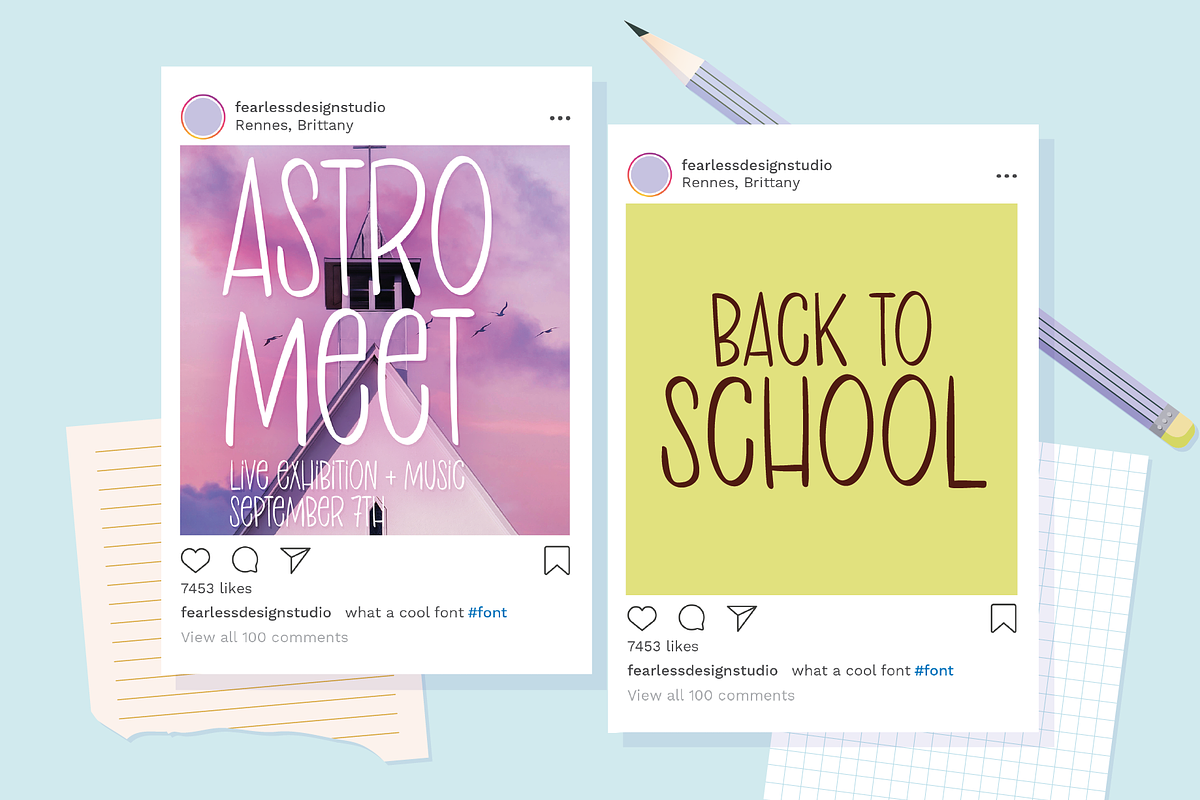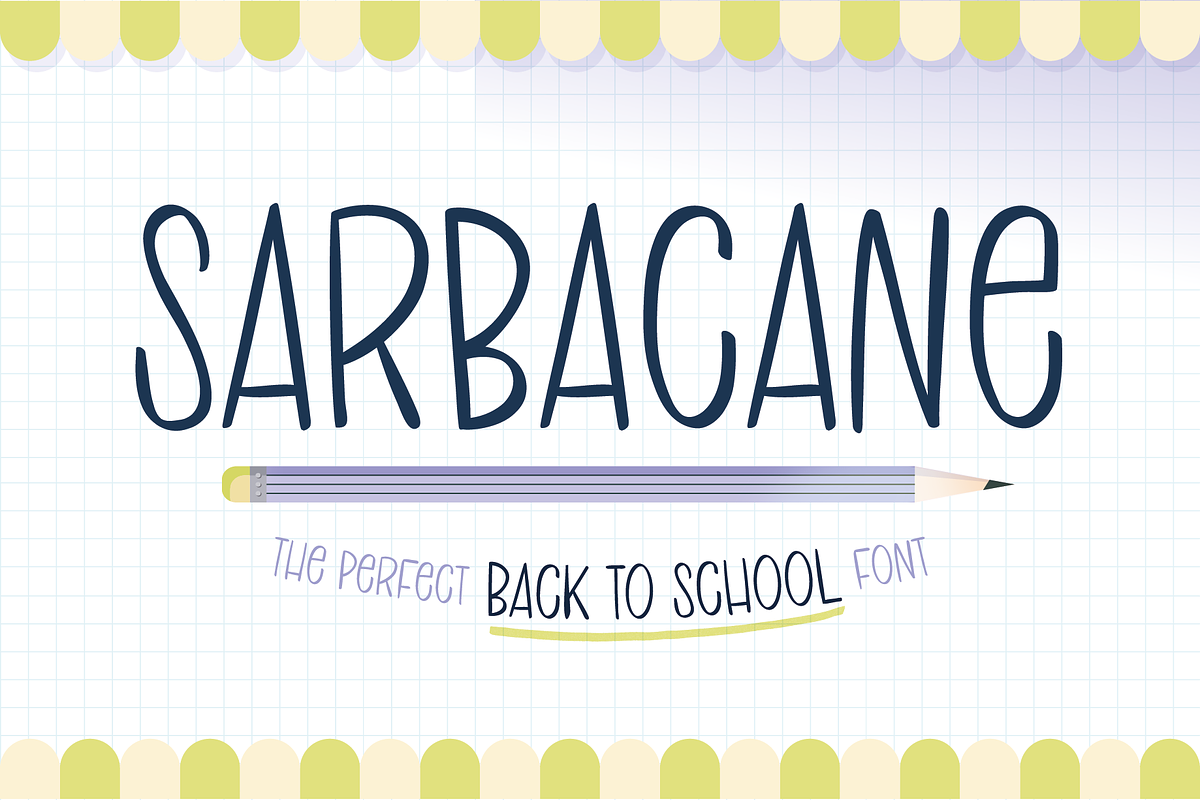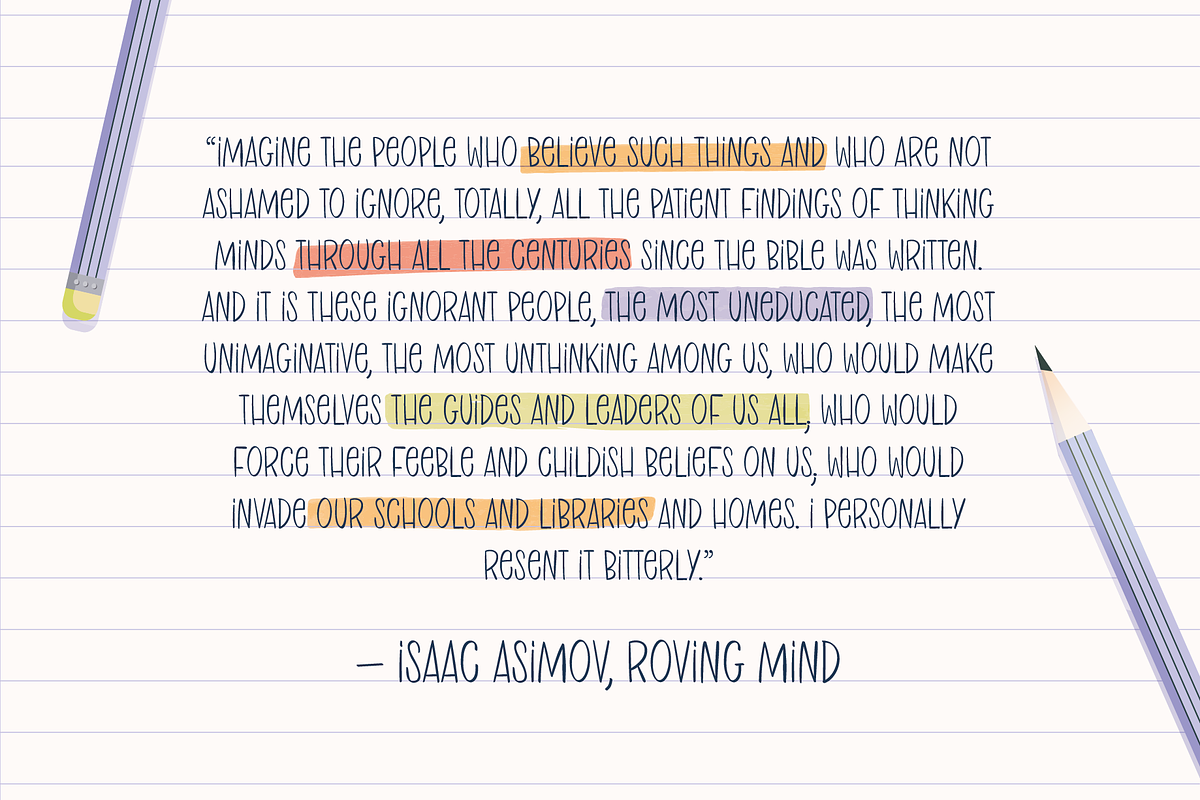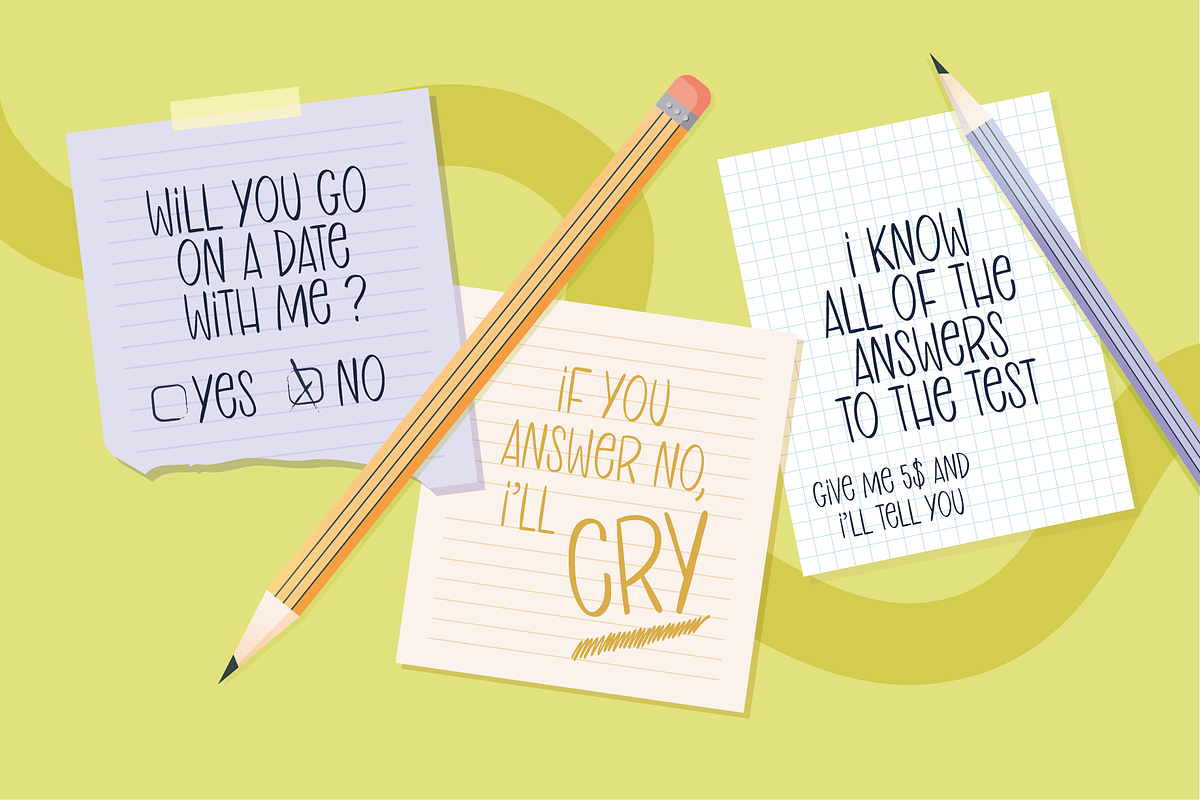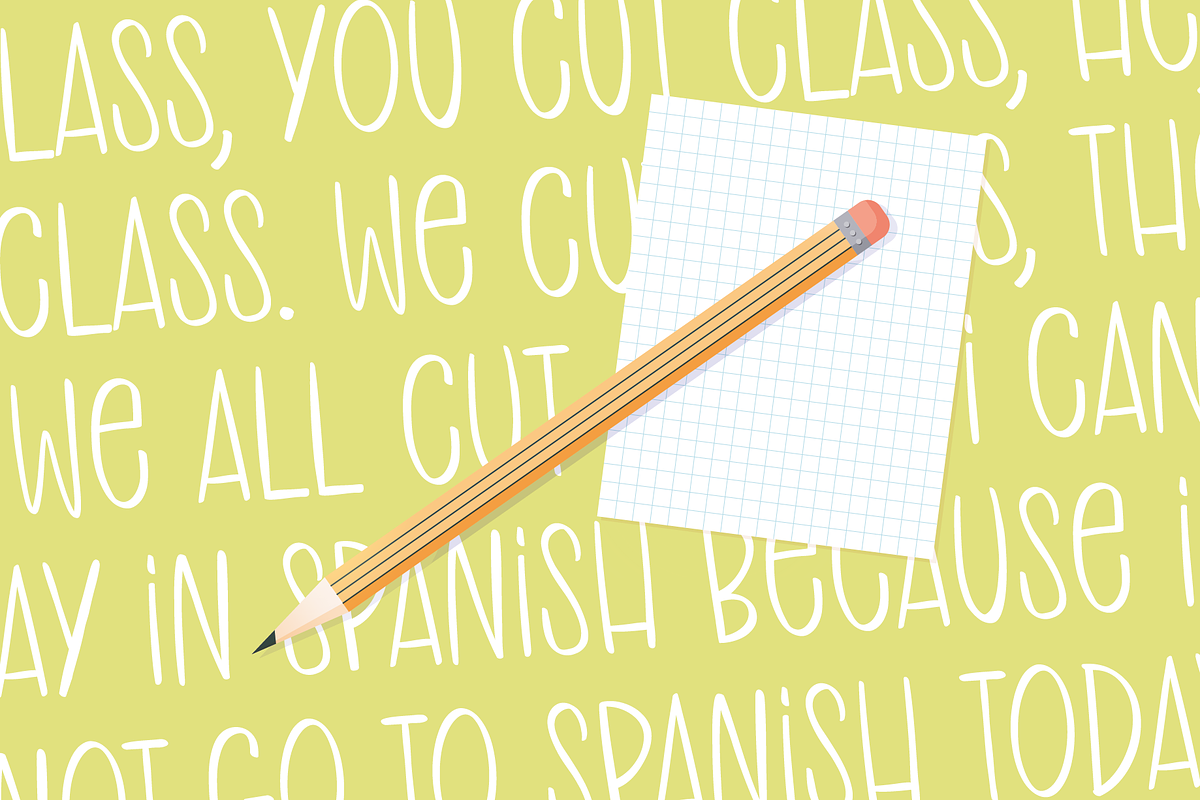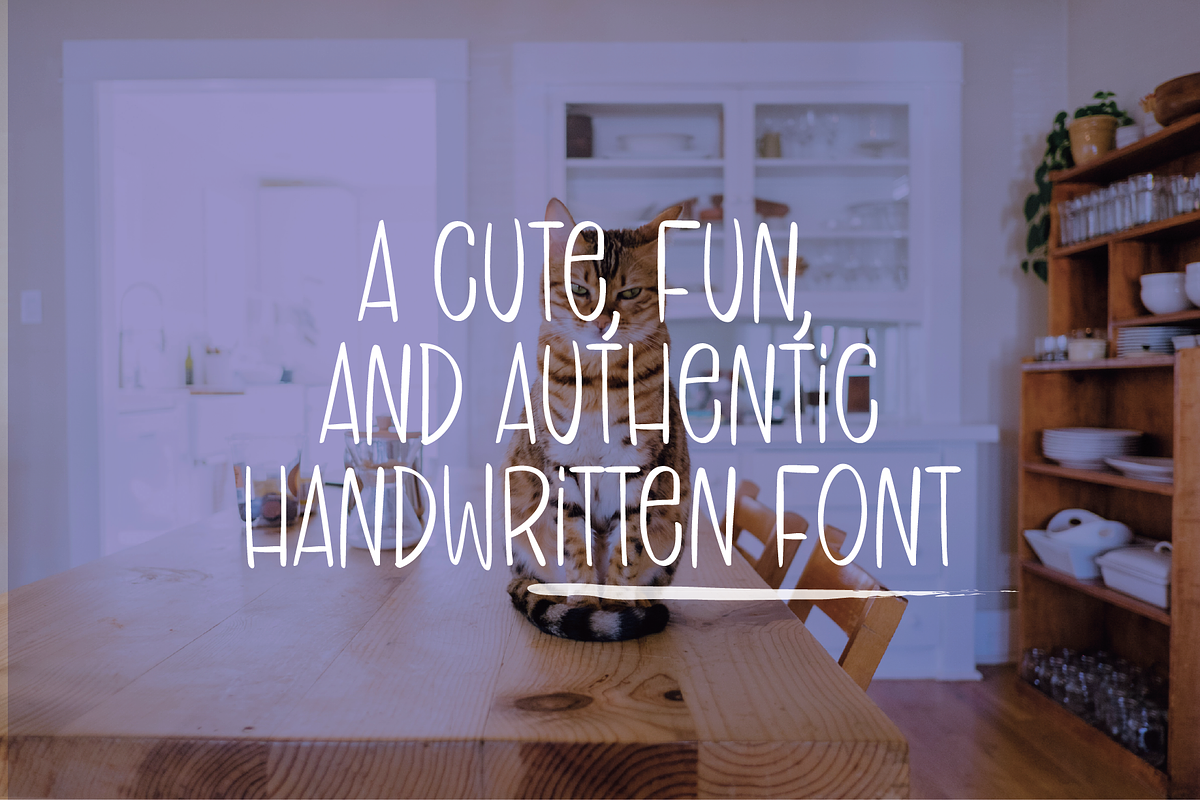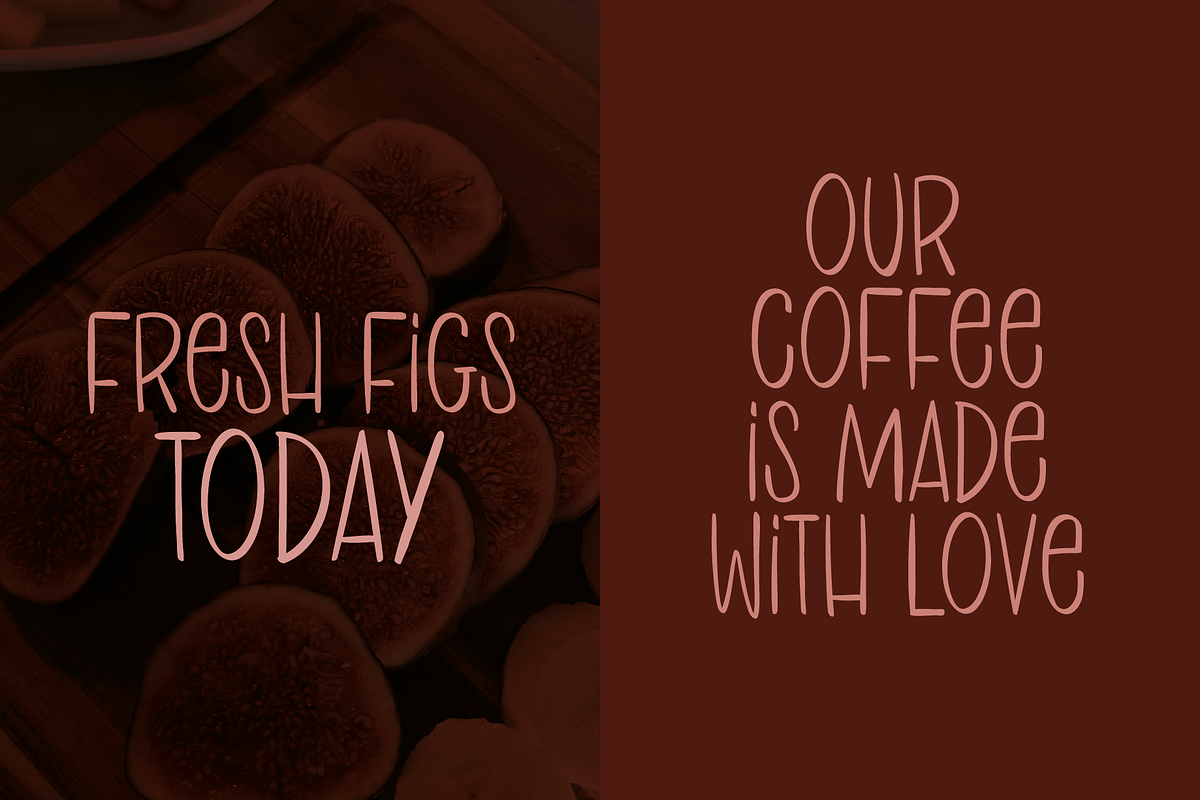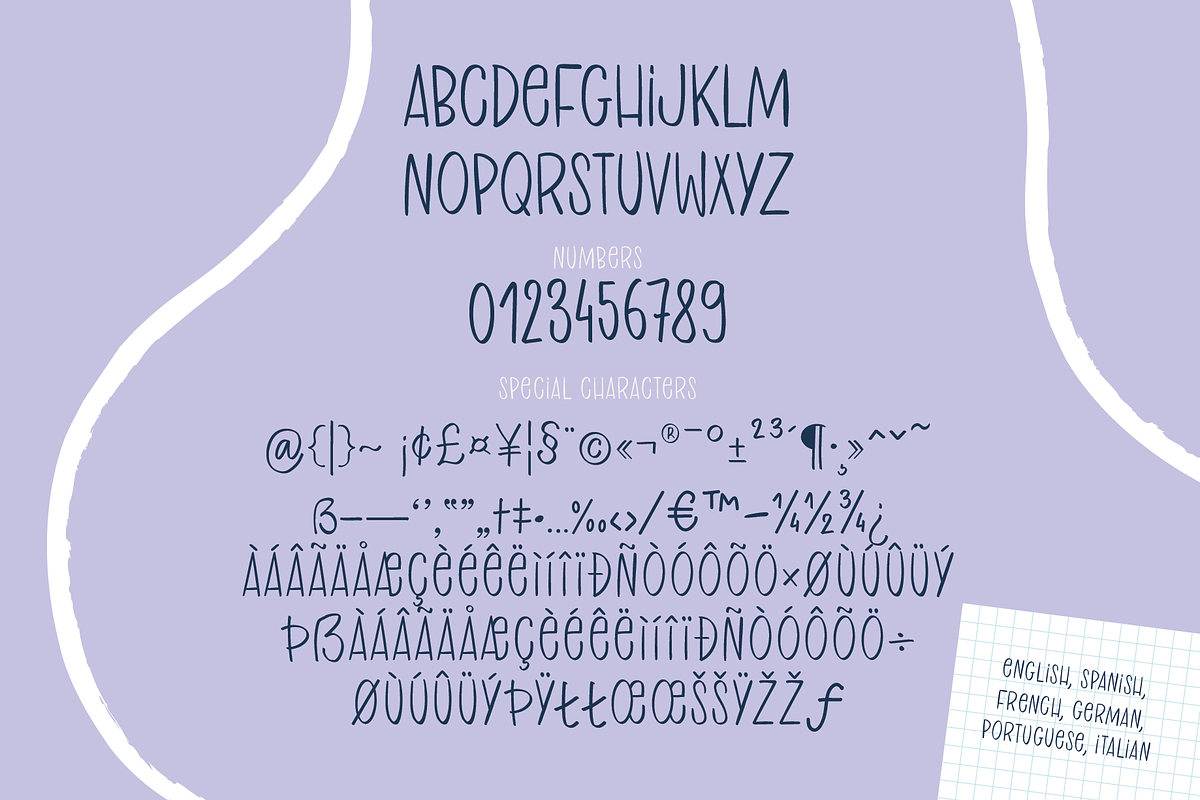
SARBACANE | Handwritten font
Sarbacane is a fun, lighthearted handwritten font inspired by school notes. Its naive, playful look captures the sincerity and authenticity of doodles in the margins, making it the perfect choice for back-to-school visuals. Whether for classroom posters, kids’ projects, stationery, or cheerful branding, Sarbacane adds a genuine, youthful touch to any design.